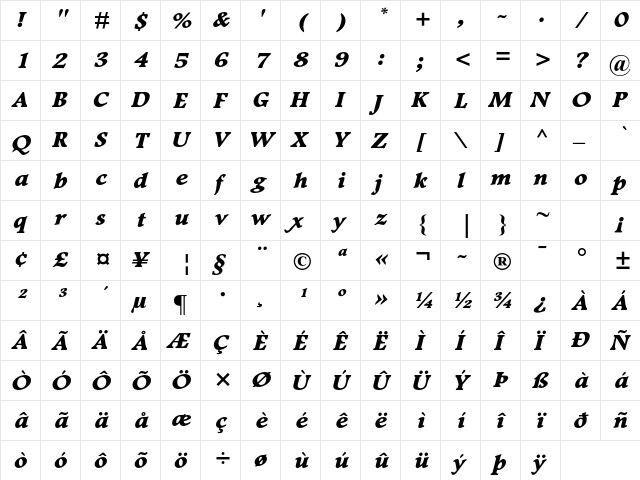
Footlight MT Std Extra Bold It
| Foundry | Agfa Monotype Corporation |
Design Context for Footlight MT Std Typeface
Footlight MT Std takes a measured approach to typography — its balanced proportions and neutral character make it a reliable workhorse for both digital and print work. Its bold stroke weight gives it real presence on the page.